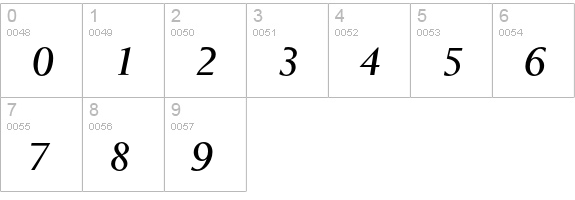
Berling T Bold Italic Font Details
Berling T Bold Italic is a strong, high-contrast, italic variant in the Berling typeface family \xE2\x80\x94 well suited to headlines, attention-grabbing titles, and strong calls-to-action.
Berling T Bold Italic is a striking and sophisticated font that exudes a sense of elegance and modernity. Its bold and italicized design adds a touch of flair and uniqueness to any project. Whether you're looking to make a statement with your headlines or add a touch of style to your design work, Berling T Bold Italic is the perfect choice. This versatile font is ideal for a wide range of creative projects, from branding and advertising to editorial design and packaging. Its distinctive appearance is sure to capture the attention of your audience and leave a lasting impression. And the best part? Berling T Bold Italic is available for free download at FontsMarket.com. So why wait? Add this stunning font to your collection today and take your designs to the next level.